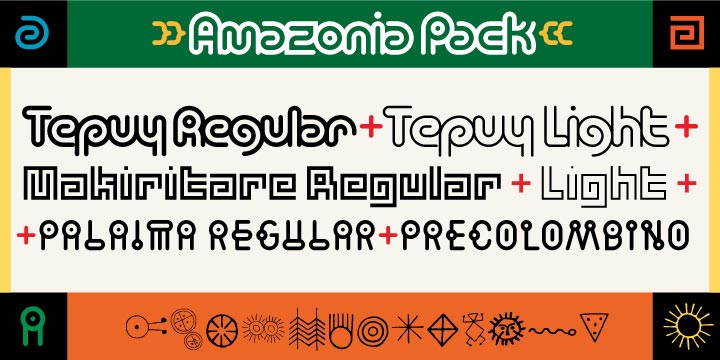
Amazonian pack is an incredible set of exotic sources; Makiritare is inspired by the craftsmanship of an ethnic baskets. Tepuy is a round font created to compose a new form and as the Makiritare comes in two weights Light and Regular. Palaima is a fonts with unusual architectural round strokes. To complete the set you found a pictorial font, Precolumbino, that contains an interesting collection of pre-Columbian petroglyphs from the jungle in the Amazon.